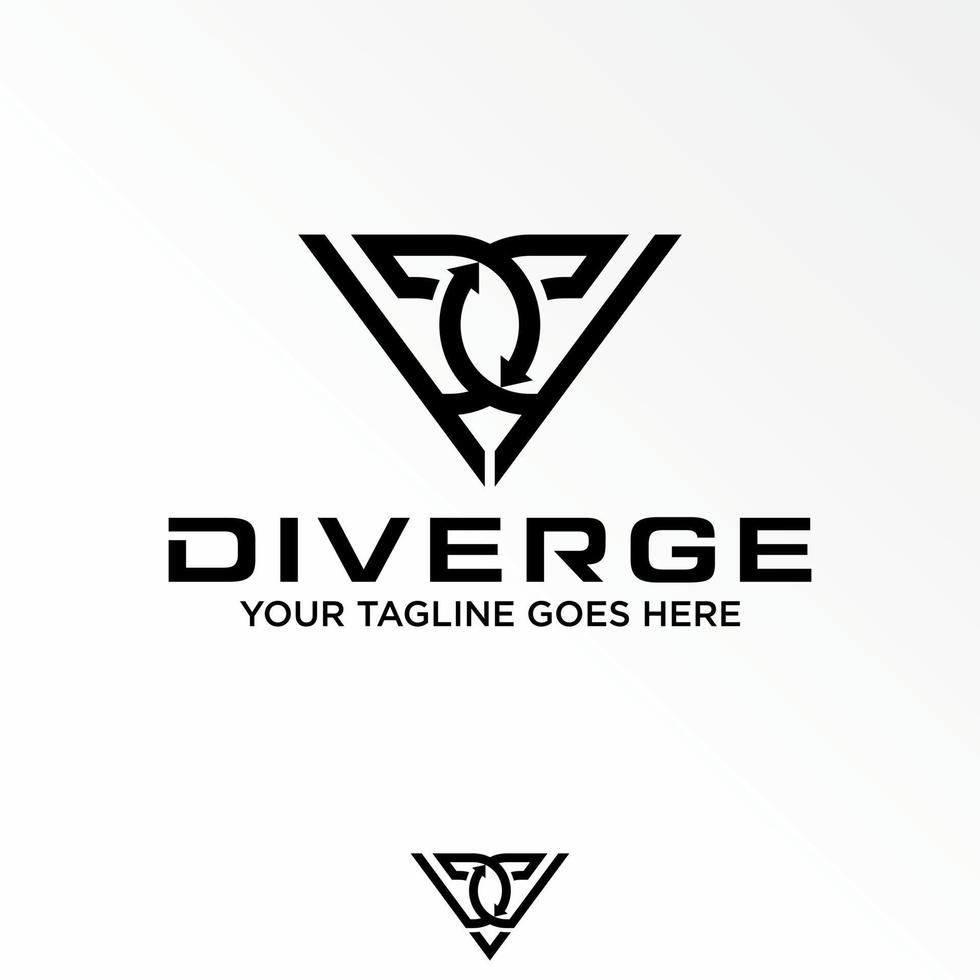
Letter or word DD sans serif font with horn on triangle arrow like animal head image graphic icon logo design abstract concept vector stock. Can be used as symbol related to monogram or initial Pro Vector